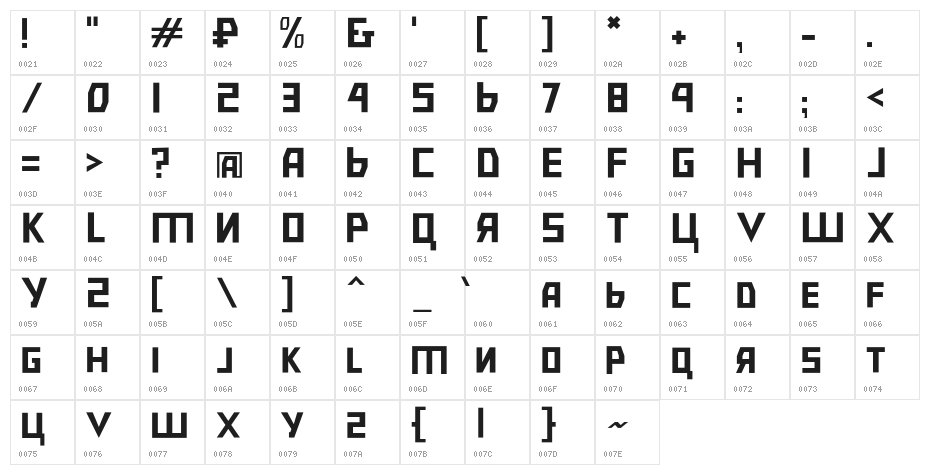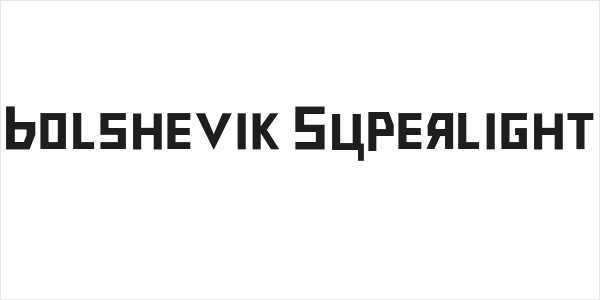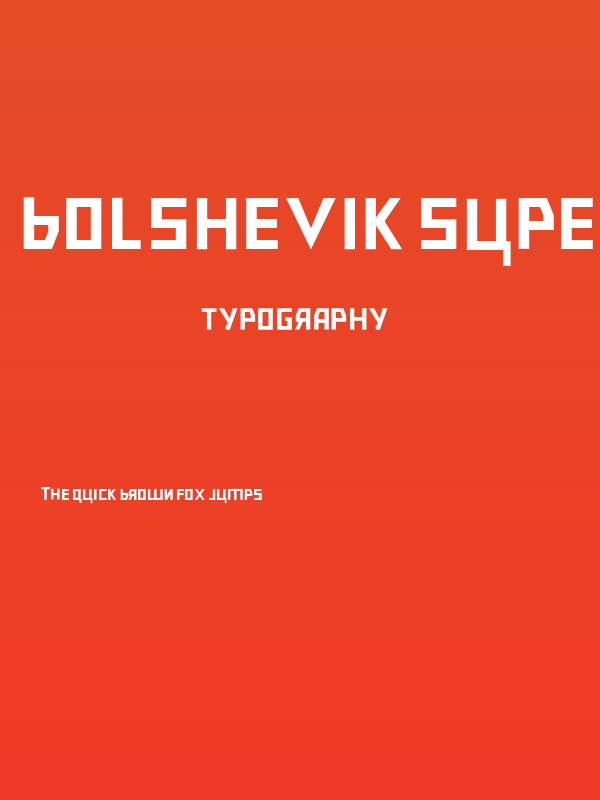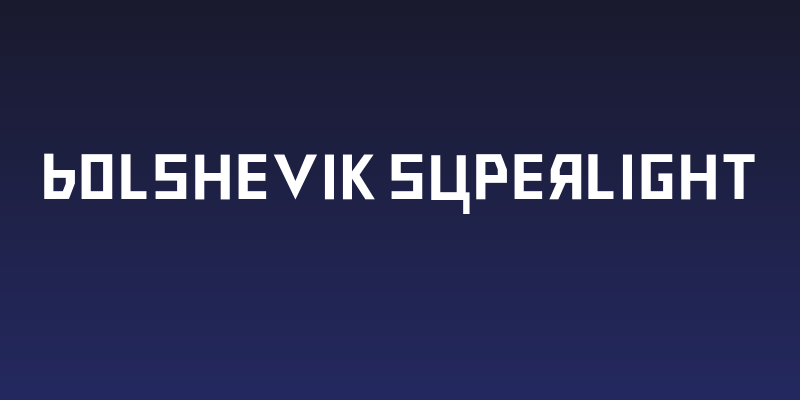
Bolshevik Superlight Font
Bolshevik Superlight Description
This font features a bold, geometric design with a strong, angular presence. The characters are constructed with sharp edges and straight lines, giving it a modern and industrial feel. The uppercase and lowercase letters maintain a consistent style, with a uniform height that enhances readability. The numerals are equally bold, matching the overall aesthetic of the alphabet. Special characters are designed with the same geometric precision, making them stand out while remaining cohesive with the rest of the typeface. This font is ideal for projects that require a strong visual impact and a contemporary look.